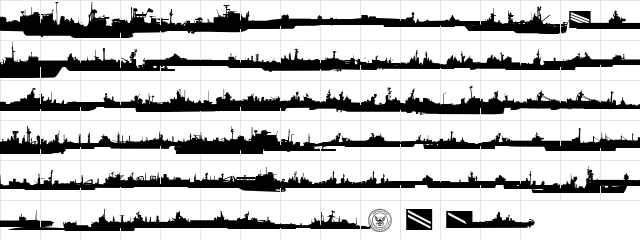
US Navy Mirror Regular
Design Context for US Navy Mirror Typeface
US Navy Mirror is a composed and adaptable typeface that performs quietly and consistently across a wide range of design contexts.
Pro Tip: Use US Navy Mirror in both headline and body roles to test its range before committing to a single application.